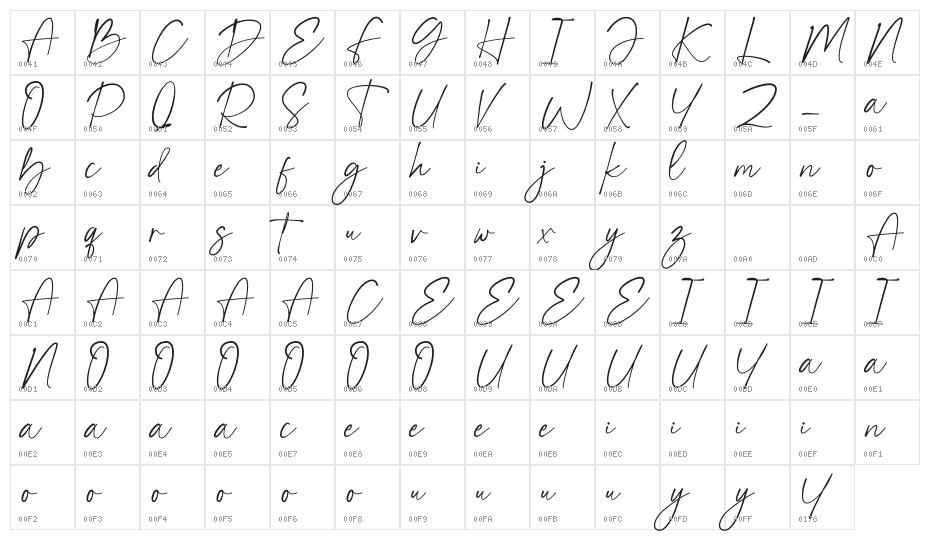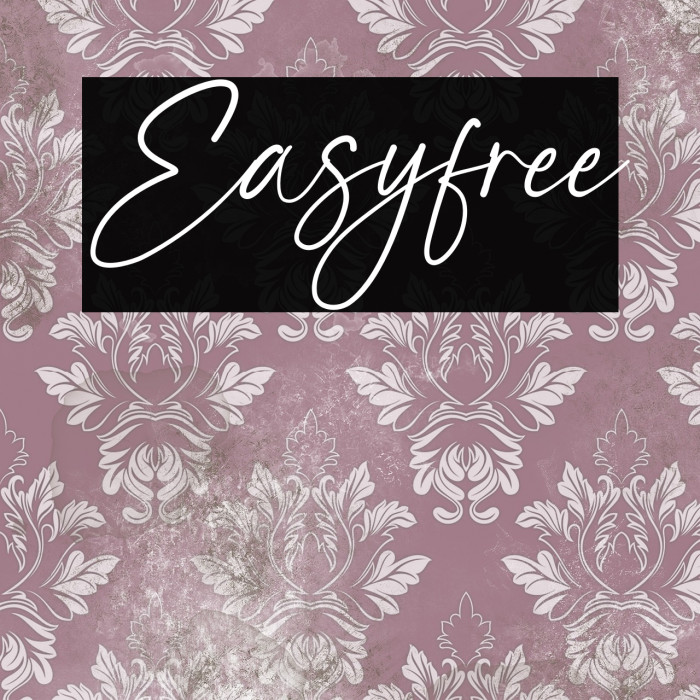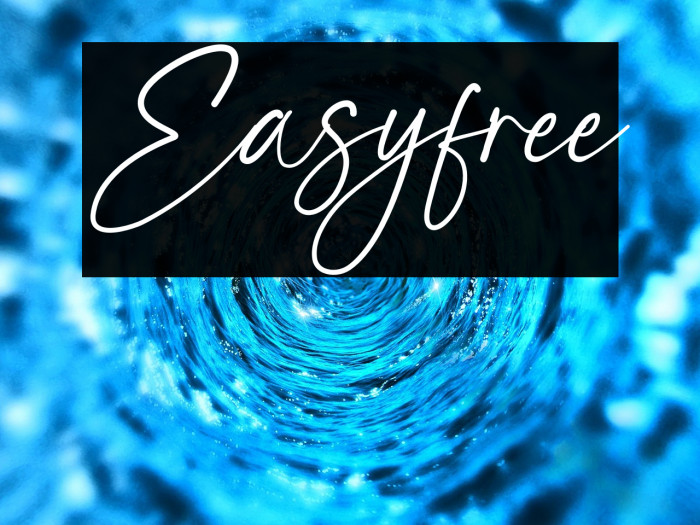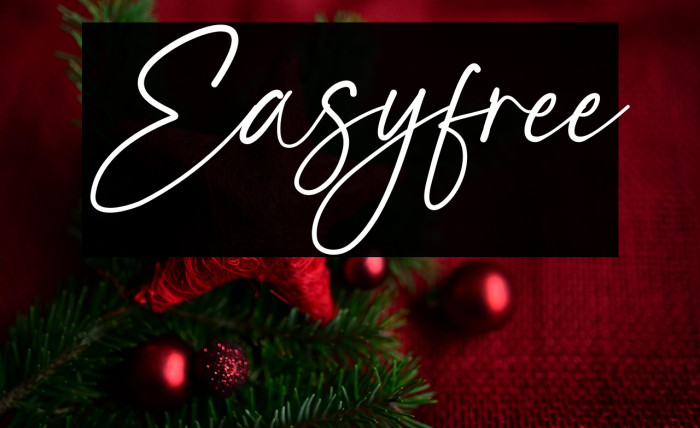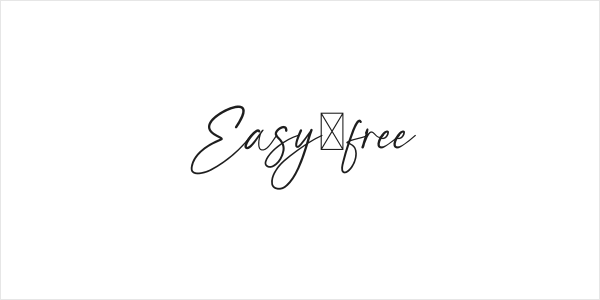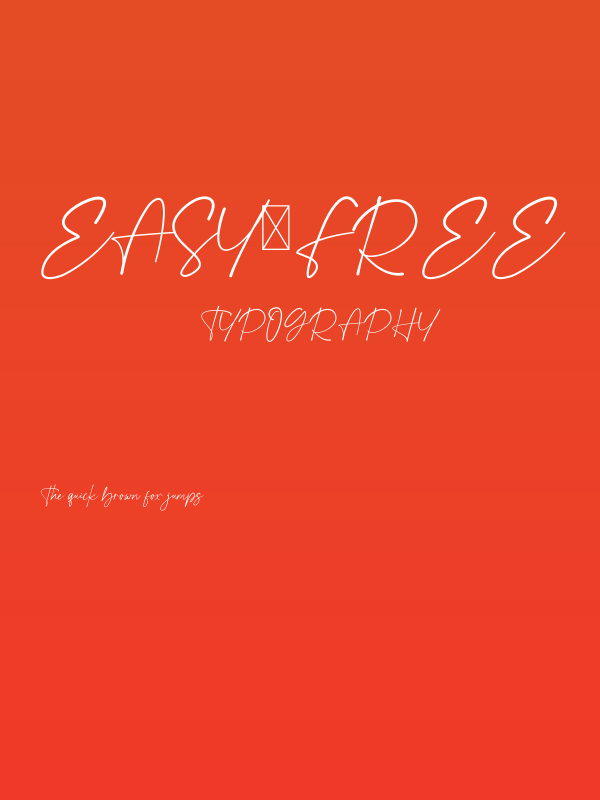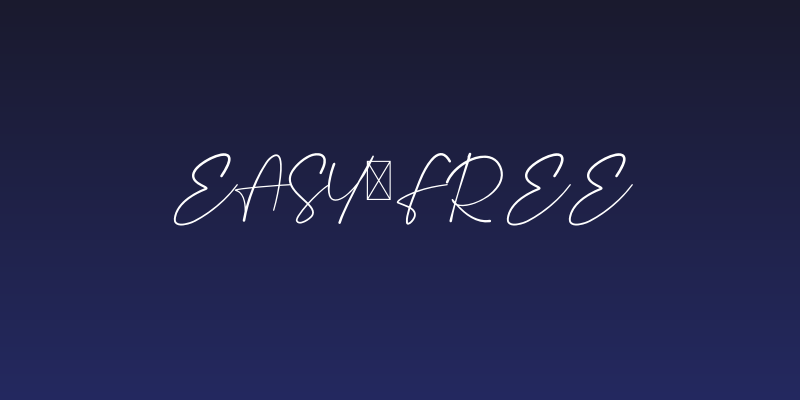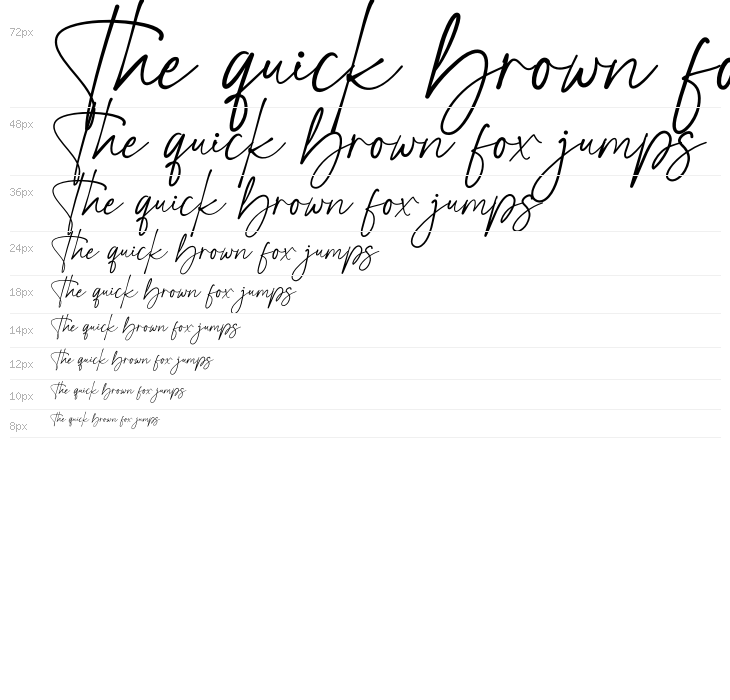
Easy-free Font
Easy-free Description
This font exudes a casual and free-spirited vibe, characterized by its handwritten, cursive style. The letters are fluid and connected, giving it an elegant yet relaxed appearance. The uppercase and lowercase letters maintain a consistent flow, with the strokes varying in thickness, adding a dynamic and lively feel. The font's organic curves and loops make it suitable for projects that require a personal touch. It lacks numerals and special characters, focusing solely on the alphabet, which enhances its simplicity and charm.
| Overall Style | Casual, Elegant |
| Proposed Projects | Ideal for wedding invitations, personal branding, greeting cards, and artistic projects. |